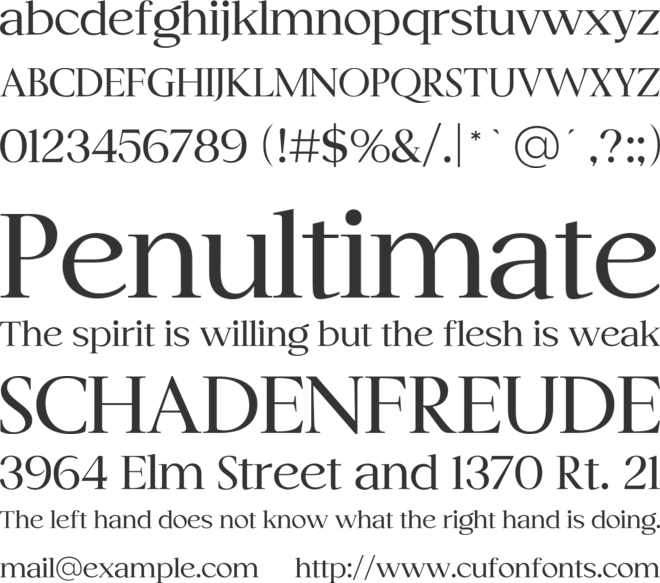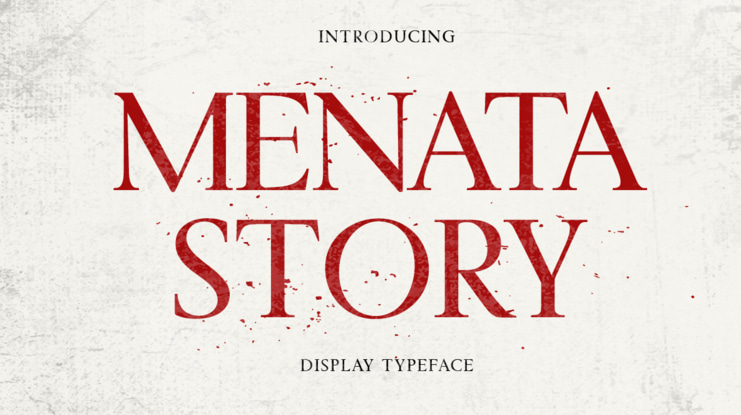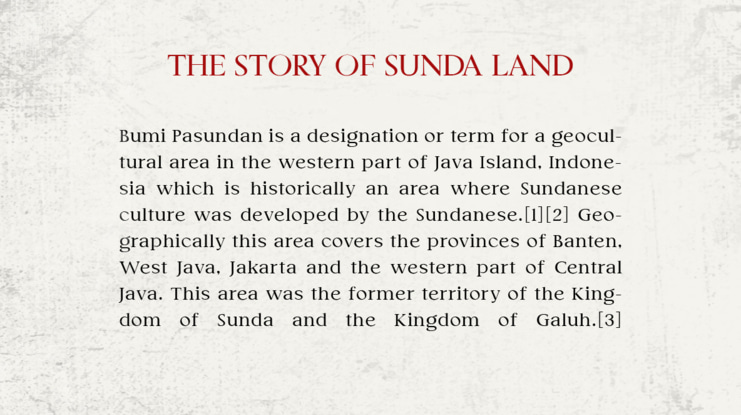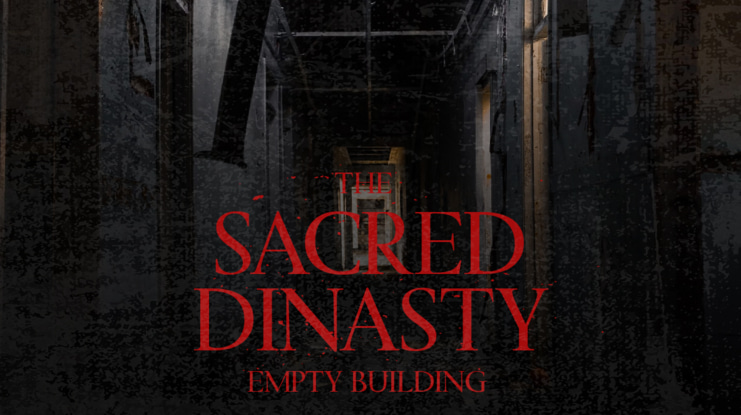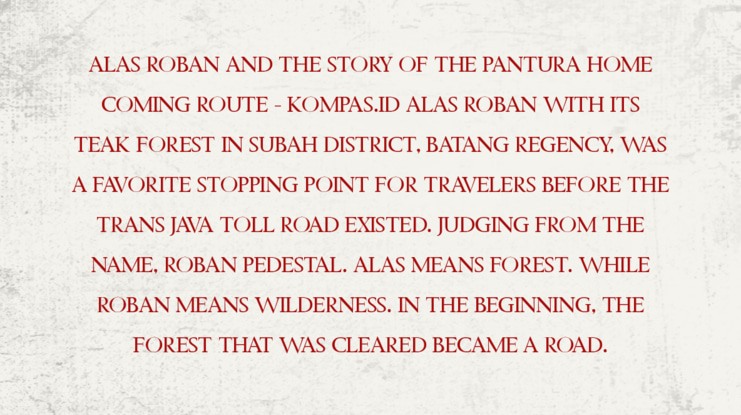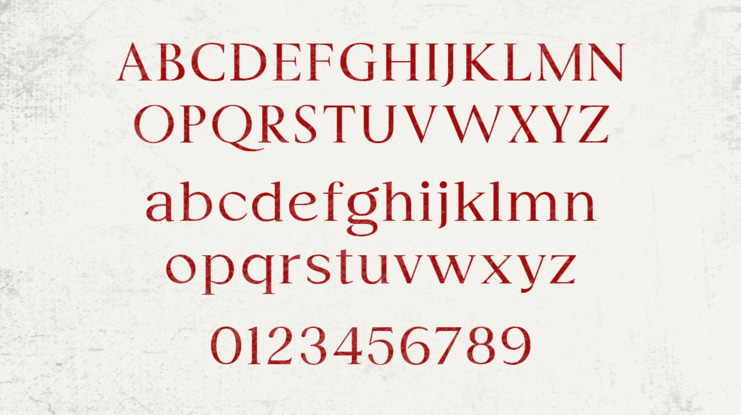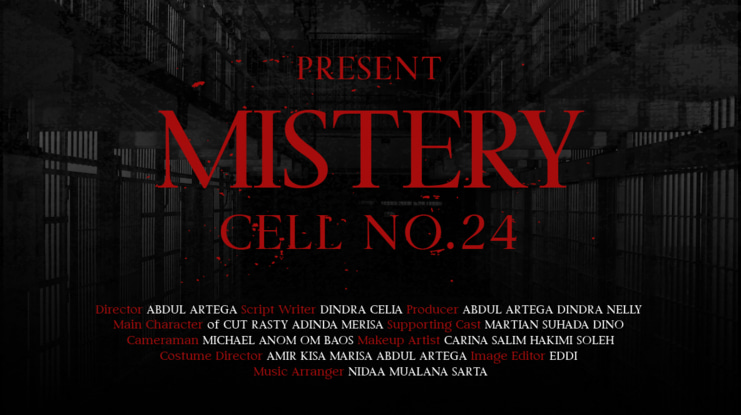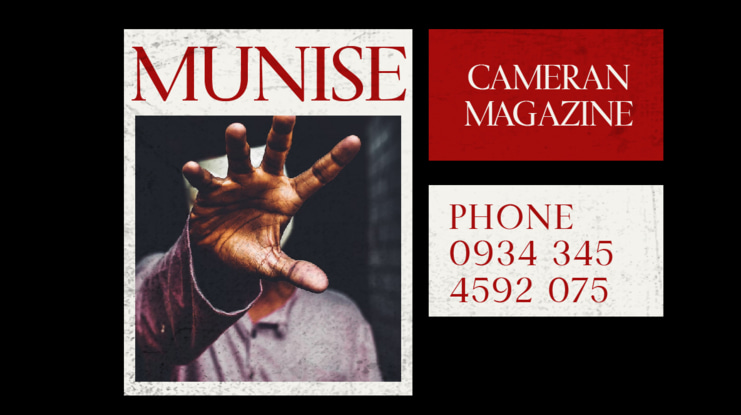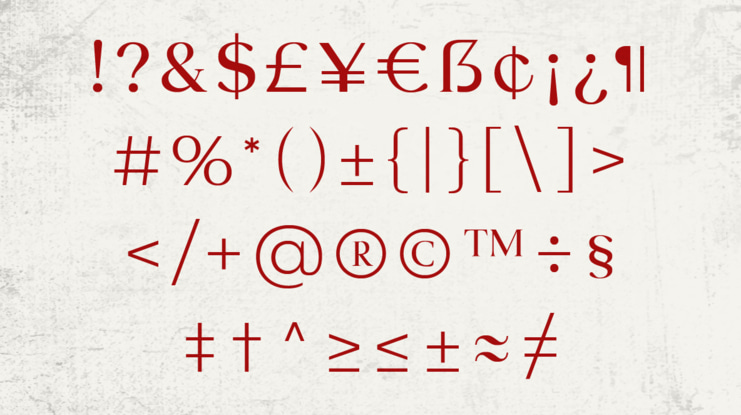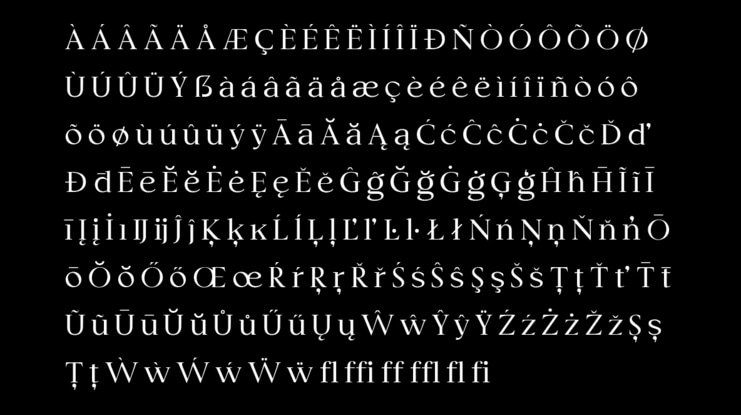
Menata Story Font
By Abdul Artega
Menata Story serif classic font is a type of font that has a classic and elegant style, but is still contemporary. Each letter has subtle details that accentuate its beauty, with lines that are thin but strong.
The serifs present give the text a classic touch and elegance, making it look neat and easy to read. This font is suitable for both formal and casual designs that require a professional and attractive appearance.
With the right variation of letter proportions, classic serif story fonts can convey clear and bold messages to readers, creating a strong and impressive impression.